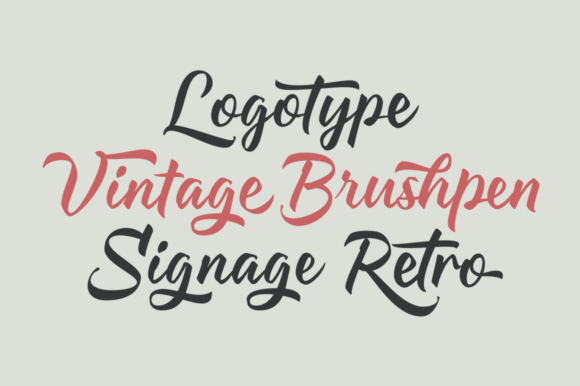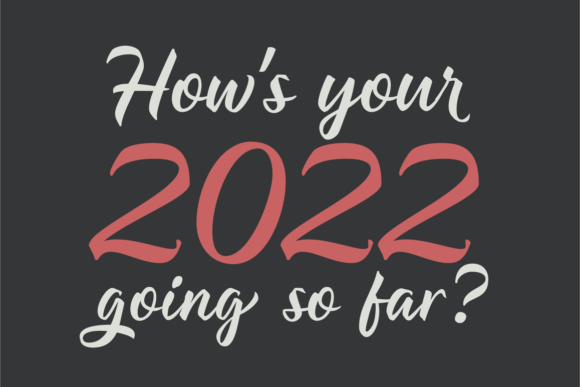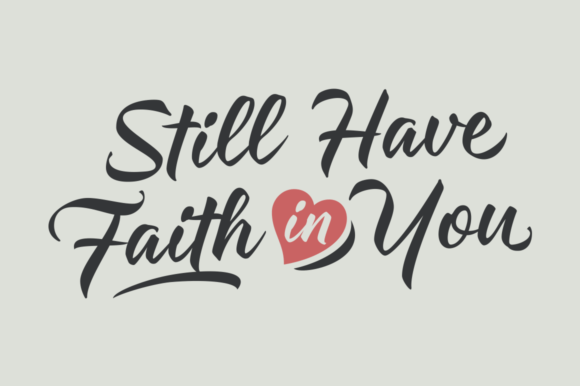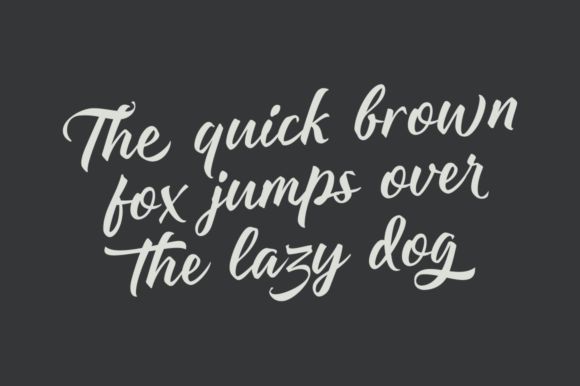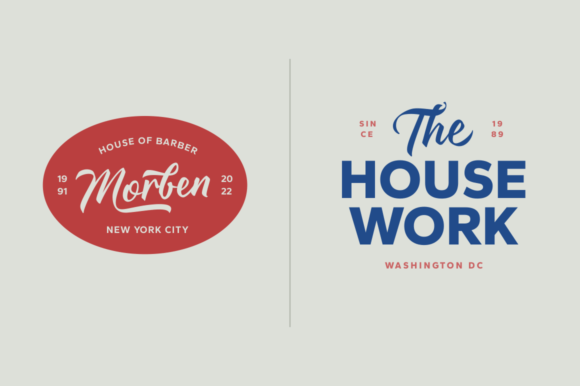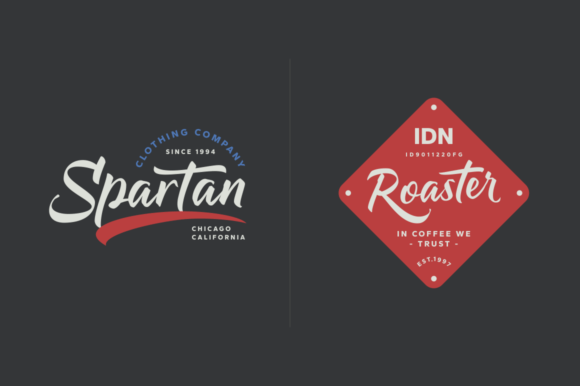
Unleash the Retro Charm of Your Designs with Berpatu Font
Have you ever walked down a bustling street, taking in the vibrant colors and eclectic signs that seem to jump out at you from shop windows and billboards? It’s moments like these that spark our creativity and inspire us to bring a touch of that vintage magic into our own designs. For designers looking to add a unique, retro flair to their work, the right font can make all the difference.
Enter Berpatu Font, a brush lettering font inspired by the classic designs of the past. Handcrafted with passion using a brush pen, Berpatu Font brings a distinctive, vintage feel to any project. Whether you’re working on a branding campaign, creating a promotional poster, or designing a website, this font is the perfect way to add a touch of nostalgia and whimsy to your designs.
Berpatu Font Key Features
- Character Set: The font includes a comprehensive character set, including Latin, Cyrillic, and Greek alphabets, as well as a range of punctuation and symbol characters.
- Unique Characteristics: Berpatu Font features a distinctive, hand-drawn aesthetic with subtle texture and imperfections, giving it a unique and human touch.
- Font Weight and Style: Berpatu Font is available in 5 weights, ranging from Light to Black, and includes a range of style options, including Regular, Italic, Bold, and Bold Italic.
Review of Berpatu Font
Overall, I found the Berpatu Font to be a unique and interesting addition to my design library. ✨ One of its strongest aspects is its ability to evoke a sense of elegance and sophistication. The subtle curves and lines add a touch of refinement to any text-based design.
The font also offers a wide range of weights and styles, making it easy to find the perfect match for your project. ✨ The extensive character set and language support are also noteworthy, as they allow designers to work with the font across various languages and applications.
However, I did encounter a few limitations. ⚠️ The font’s readability can suffer in smaller sizes, particularly in digital formats. Additionally, the font may not be suitable for projects that require a more modern or edgy aesthetic.
Here are some key points to consider:
- Unique and elegant design
- Wide range of weights and styles
- Extensive character set and language support
- Potential readability issues in smaller sizes
- May not be suitable for modern or edgy projects
In conclusion, the Berpatu Font is a solid choice for designers who want to add a touch of sophistication to their work. While it may have some limitations, its unique design and versatility make it a valuable addition to any design library.
Use Berpatu Font for creative and artistic projects, such as:
– Designing book covers or magazines.
– Creating social media graphics or advertisements.
– Developing branding materials, such as logos or business cards.